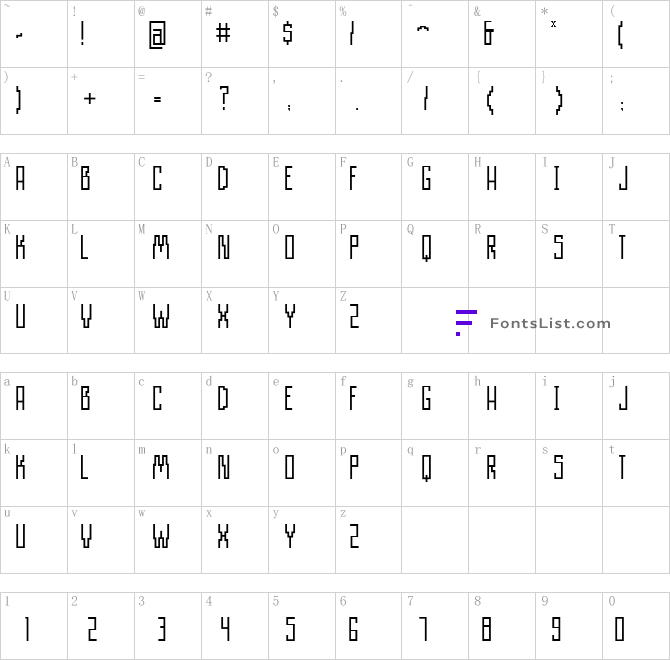
- Font Name:AIRWAVE 1
AIRWAVE-1.ttf is a very beautiful artistic font, AIRWAVE-1.ttf is widely used in the design and printing of various books and pictures,AIRWAVE-1.ttf has a strong visual impact,AIRWAVE-1.ttf is a commonly used font in newspapers, magazines and books, and is used in posters, e-commerce Poster design, store design, logo design, font design and other fields.AIRWAVE-1.